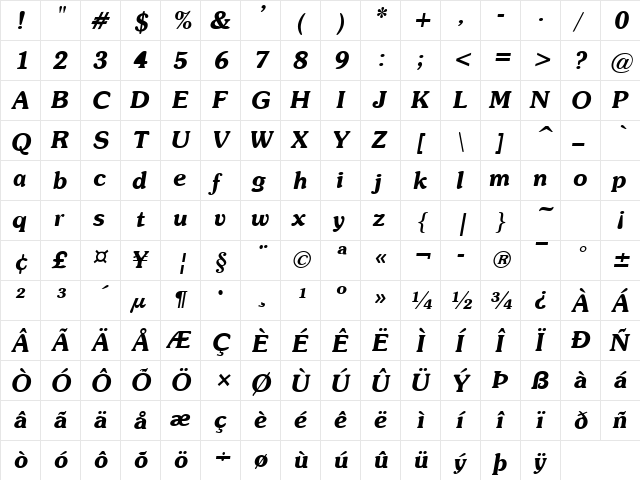
Souvienne Bold Italic
Design Context for Souvienne Typeface
Souvienne is a composed and adaptable typeface that performs quietly and consistently across a wide range of design contexts. The slanted form adds forward momentum and visual energy. The heavy weight commands attention and anchors typographic hierarchies.
Pro Tip: Use Souvienne for emphasis, pull quotes, and subheadings where its slanted energy can add rhythm to the layout.